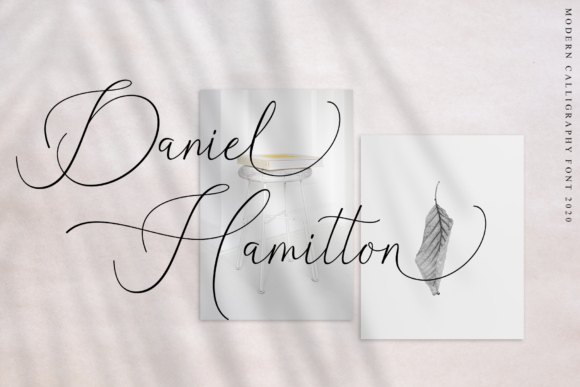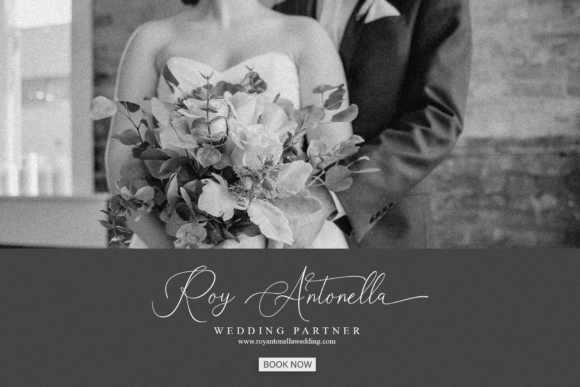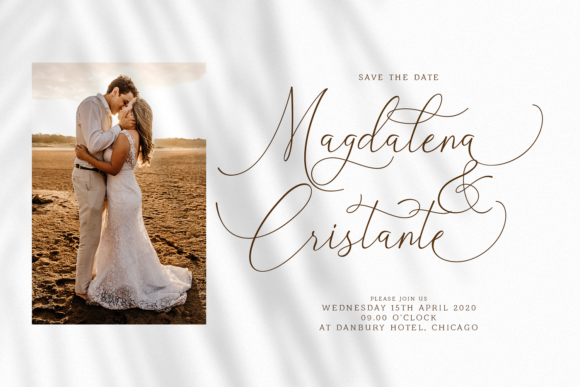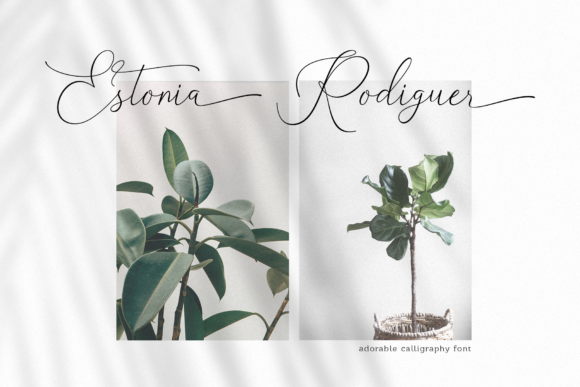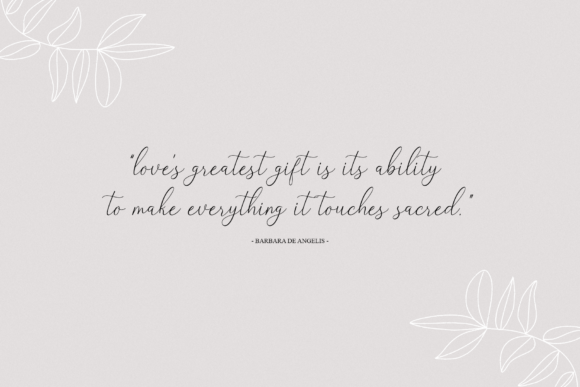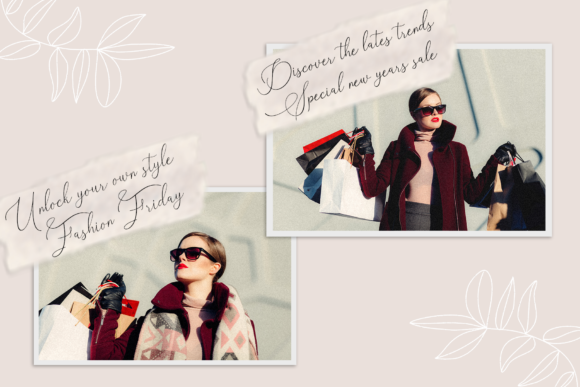
Discover the Elegance of Belinda Carolyne Font: A Tasteful Calligraphy Font for Crafting Projects
Are you a designer or crafter looking for a font that can add a touch of romance and sophistication to your projects? Look no further than the Belinda Carolyne font. This beautiful calligraphy font is designed to bring a sense of elegance and refinement to any crafting project, from wedding invitations and stationery to DIY crafts and digital designs.
What Makes Belinda Carolyne Font So Special?
Belinda Carolyne is a tasteful calligraphy font that boasts beautiful swashes and ligatures, which are perfect for adding a romantic touch to any project. The font’s elegant and flowing lines are reminiscent of traditional calligraphy, making it ideal for creating bespoke wedding invitations, greeting cards, and other special occasion stationery.
One of the standout features of the Belinda Carolyne font is its extensive range of swashes and ligatures. These decorative elements can be used to add a personal touch to your designs, creating a unique and eye-catching effect that will set your projects apart from the rest. Whether you’re looking to create a vintage-inspired wedding invitation or a modern digital design, the Belinda Carolyne font has the versatility to adapt to any style or theme.
The Belinda Carolyne font is a versatile and user-friendly font that is perfect for designers and crafters of all levels. Whether you’re a professional designer looking for a font to add to your portfolio or a crafter looking for a unique and elegant font to use in your DIY projects, Belinda Carolyne is an excellent choice.
For designers, the Belinda Carolyne font offers a range of possibilities for creating bespoke designs. From custom wedding invitations and stationery to branding and packaging design, this font can be used to create a wide range of projects that require a touch of elegance and sophistication.
For crafters, the Belinda Carolyne font is a great way to add a personal touch to your DIY projects. Whether you’re creating handmade cards, gift tags, or other paper crafts, this font can be used to add a romantic and whimsical touch to your designs.
Tips for Using the Belinda Carolyne Font
Here are a few tips for using the Belinda Carolyne font in your designs:
• Use the font to create custom wedding invitations and stationery, such as save-the-date cards, wedding programs, and place cards.
• Add a romantic touch to your digital designs, such as social media graphics, blog headers, and email newsletters.
• Use the font to create beautiful handmade cards and gift tags for special occasions.
• Experiment with different swashes and ligatures to create a unique and eye-catching effect.
In conclusion, the Belinda Carolyne font is a beautiful and elegant calligraphy font that is perfect for designers and crafters looking to add a touch of romance and sophistication to their projects. With its extensive range of swashes and ligatures, this font offers a range of possibilities for creating bespoke designs that are sure to impress. Whether you’re a professional designer or a crafter looking for a unique and elegant font, the Belinda Carolyne font is an excellent choice.
So why not give the Belinda Carolyne font a try? With its versatility, elegance, and romantic charm, it’s sure to become a favorite in your design or crafting arsenal.